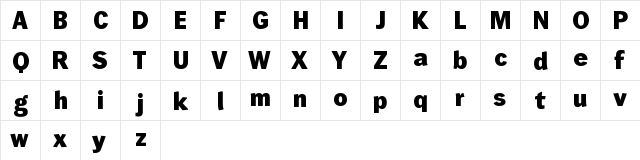
Wendelin Regular
Design Context for Wendelin Typeface
Wendelin takes a measured approach to typography — its balanced proportions and neutral character make it a reliable workhorse for both digital and print work.
Pro Tip: Pair Wendelin with a font of contrasting weight or personality to build a more expressive typographic hierarchy.